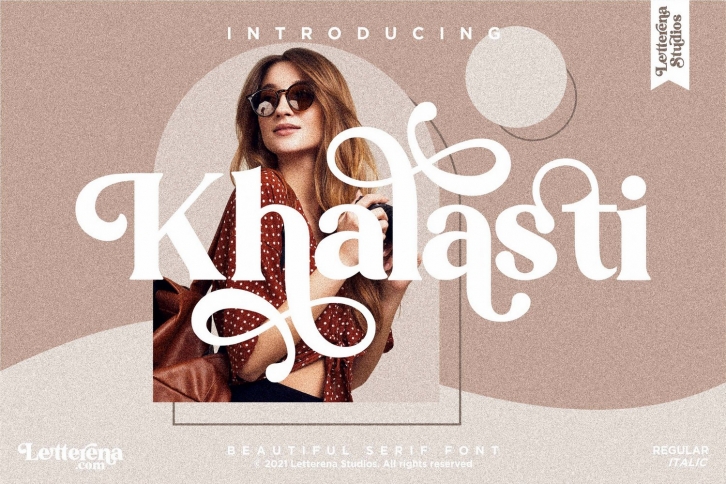
Khalasti - Beautiful Serif Font Download
Khalasti is a trendy and unique font with an authentic style. It was designed by Letterena Studios and it's a great choice for creative people who need such a font. It was released on March 6, 2021 and the file size is 4.32 MB. Khalasti will add an organic vibe to any design idea!